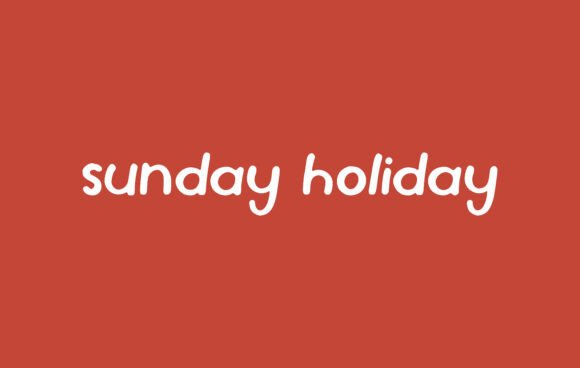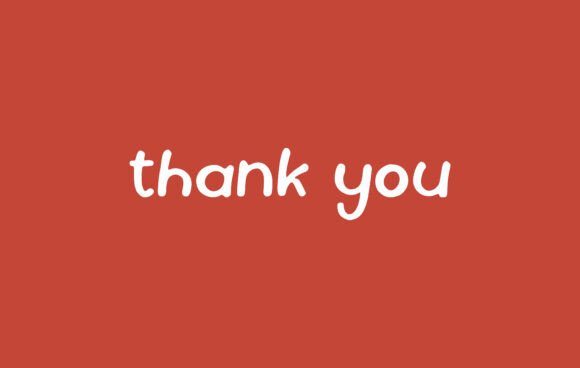
Introduction to Handmade Haven Font
Handmade Haven font is an authentic handwritten font with a romantic touch.
Key Features of Handmade Haven Font
Why Choose Handmade Haven Font?
Handmade Haven Font offers exceptional quality and versatility, making it a valuable addition to your design toolkit. Whether you’re creating for personal projects or commercial use, Handmade Haven Font delivers professional results.